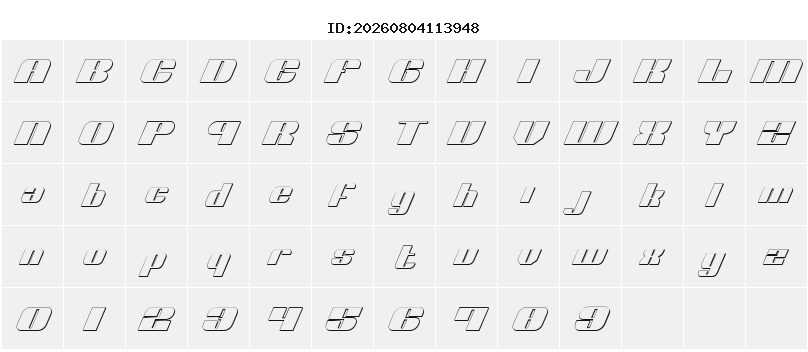
Nolo Contendre Shadow Italic Preview
• Font Name: Nolo Contendre Shadow Italic
• Font Style: Shadow Italic
• Font ID: Nolo Contendre Shadow Italic
• Full Font Name: Nolo Contendre Shadow Italic
• Version: 2
• PostScript Name: NoloContendreShadowItalic
• Character Count: 221
About Nolo Contendre Shadow Italic.ttf
Nolo Contendre Shadow Italic.ttf is a modern, elegant sans-serif font designed for ultimate readability and visual harmony. Perfect for branding, headlines, web design, and print materials.